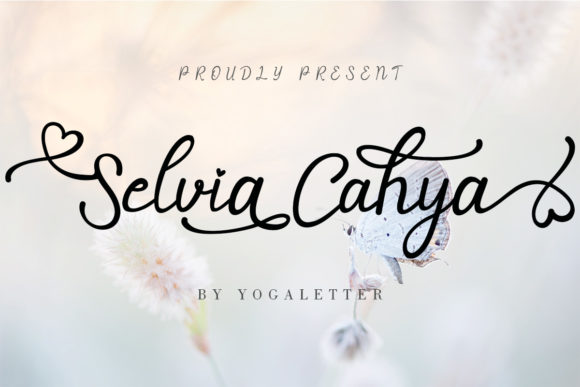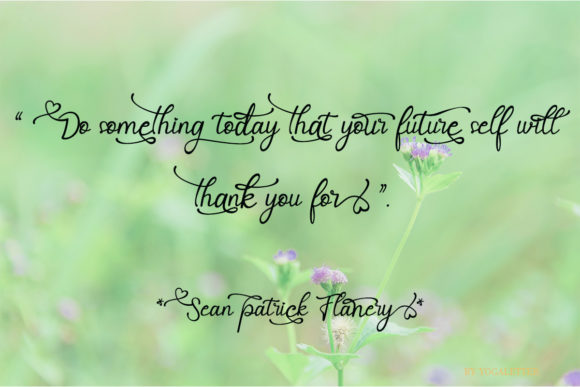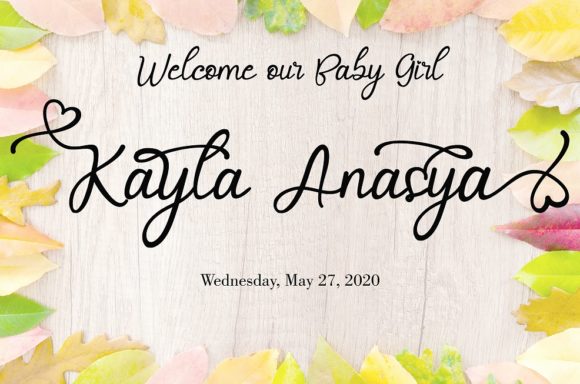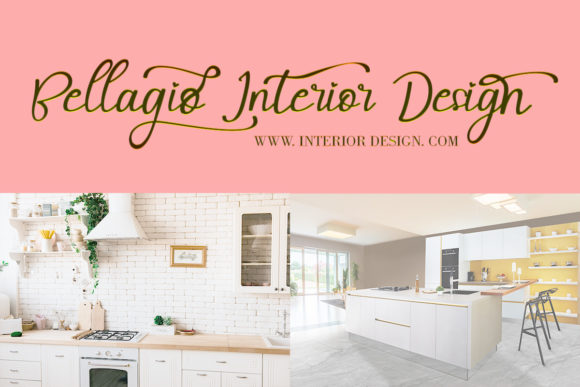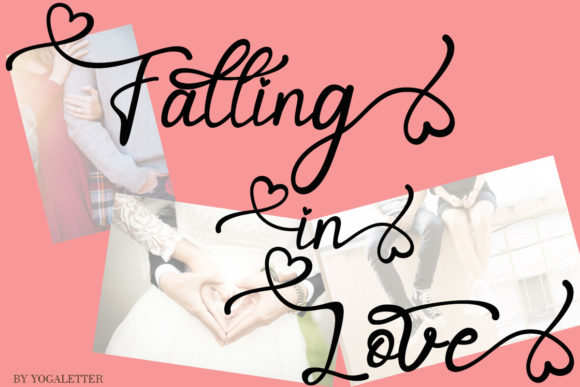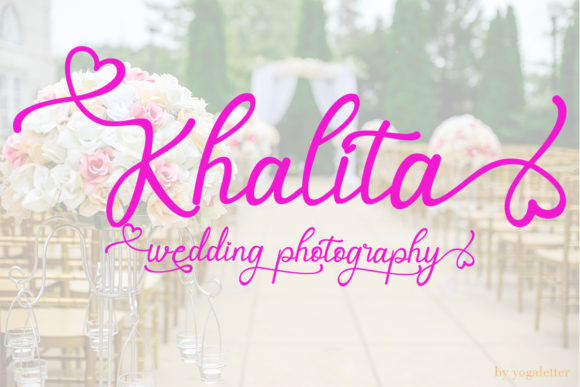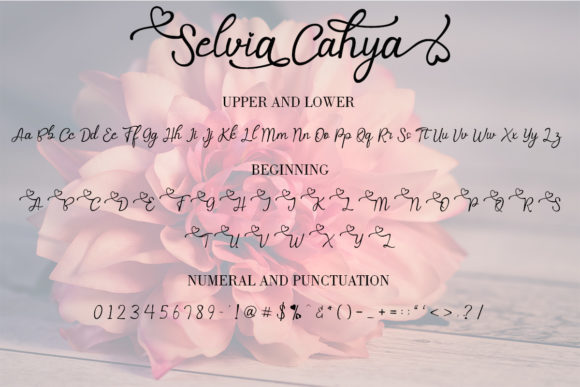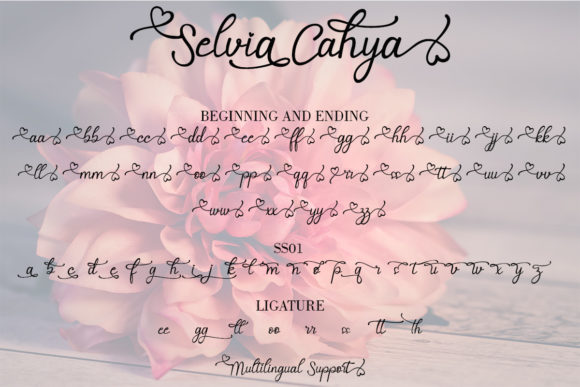
Selvia Cahya Font
About Selvia Cahya Font
Selvia Cahya feels equally charming and elegant. It looks lovely on wedding invitations, thank you cards, quotes, greeting cards, logos, business cards and every other design which needs a handwritten touch.